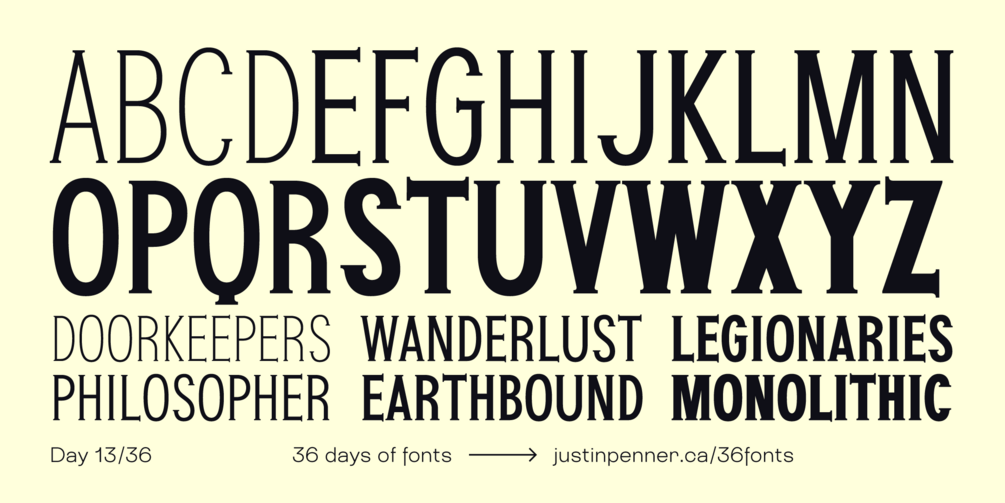
36 Days of Fonts: Day 13
Electroplate
I was thinking about how I'd love to see Copperplate Gothic make a comeback as a genre, and all the new interpretations and spinoffs it could generate. So, this is my first attempt at a Copperplate Gothic spinoff, blended with a bit of sci-fi and industrial style. This design came together so smoothly that I decided to take the challenge of designing a font in a day to a whole new level, designing not one, but **six weights**, interpolated from two masters!